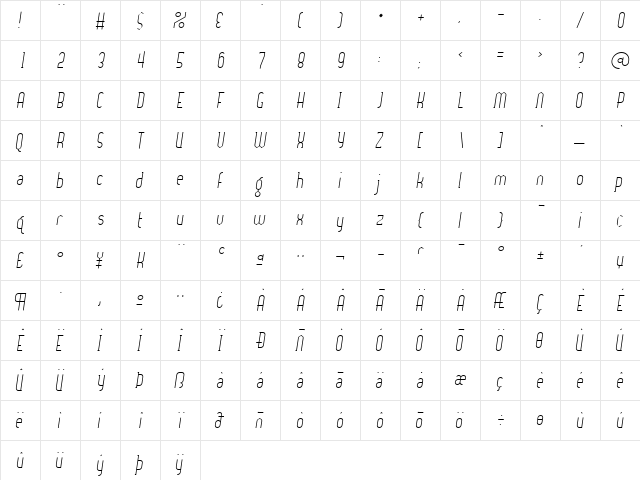
Centrifuge ExtraLight
Design Context for Centrifuge Typeface
Centrifuge offers clean, dependable letterforms without strong stylistic allegiance, making it a practical choice for designers who need flexibility. Its slender proportions lend an understated elegance to any composition.